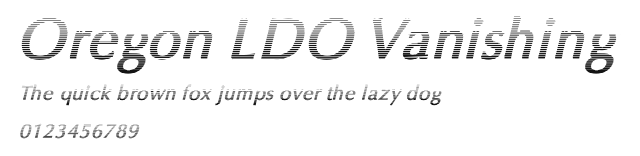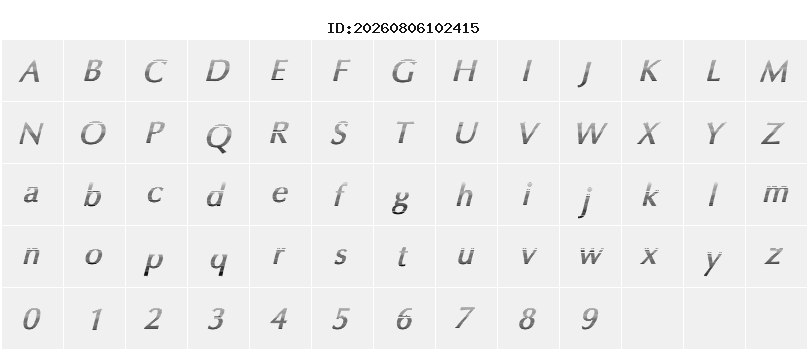
• Font Name: Oregon LDO Vanishing
• Font Style: Bold Oblique
• Designer: Luke Owens
About Oregon LDO Vanishing.ttf
Oregon LDO Vanishing.ttf is a modern, elegant sans-serif font designed for ultimate readability and visual harmony. Perfect for branding, headlines, web design, and print materials.